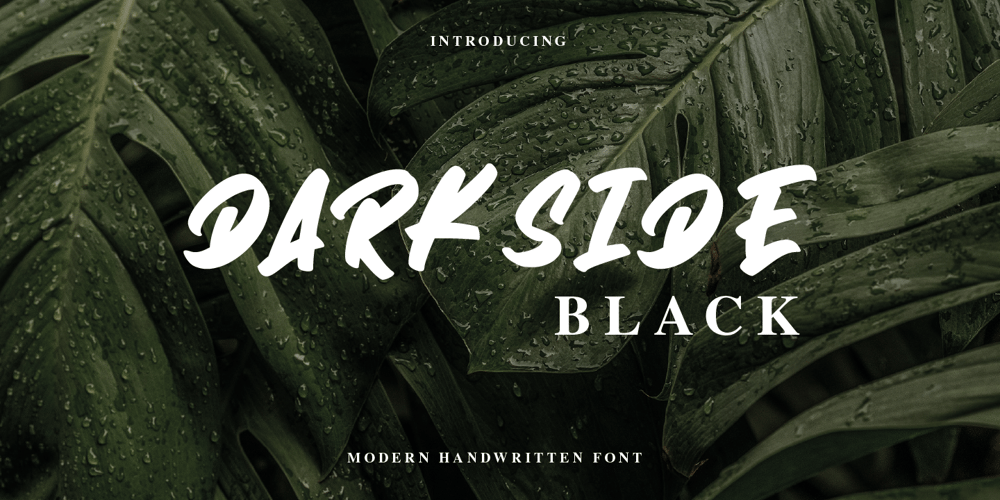
Darkside Black Font Family was designed by Alde Saputro and published by Aldedesign. Darkside Black contains 2 styles and family package options. Darkside is a cool and brushed display font. It is PUA encoded which means you can access all of the glyphs and swashes with ease! Add it confidently to your favorite creations and let yourself be amazed by the outcome generated.